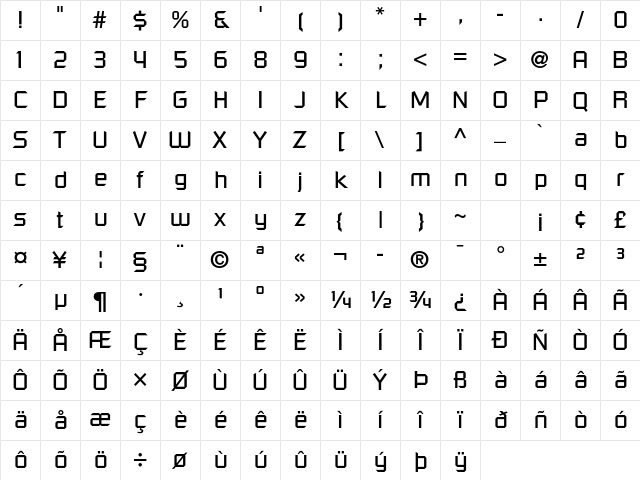
Russell Square Std Regular
Designer: John Russell
Design Context for Russell Square Std
Russell Square Std is a composed and adaptable typeface that performs quietly and consistently across a wide range of design contexts.